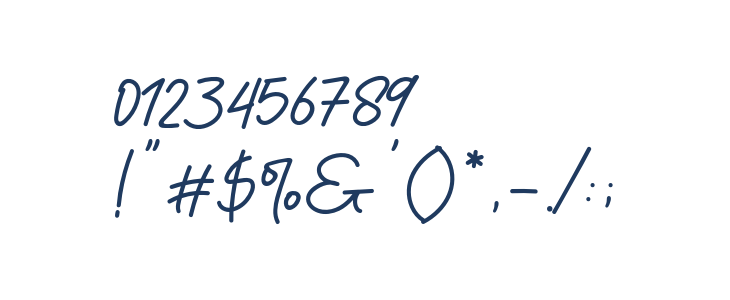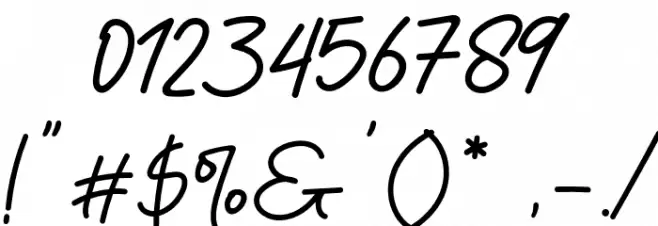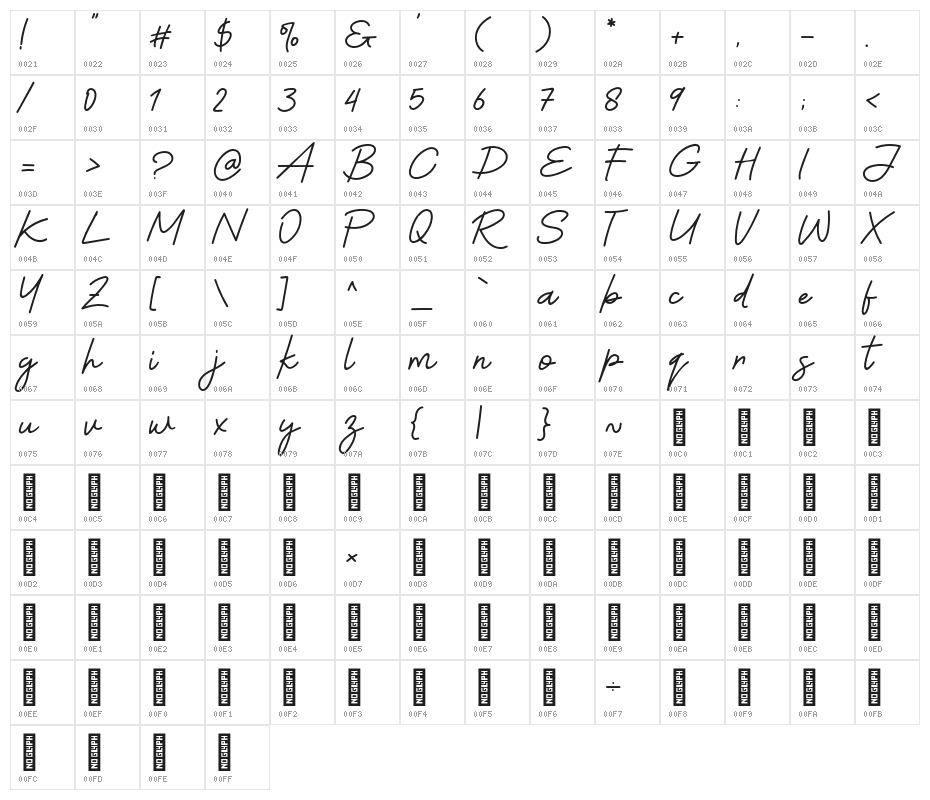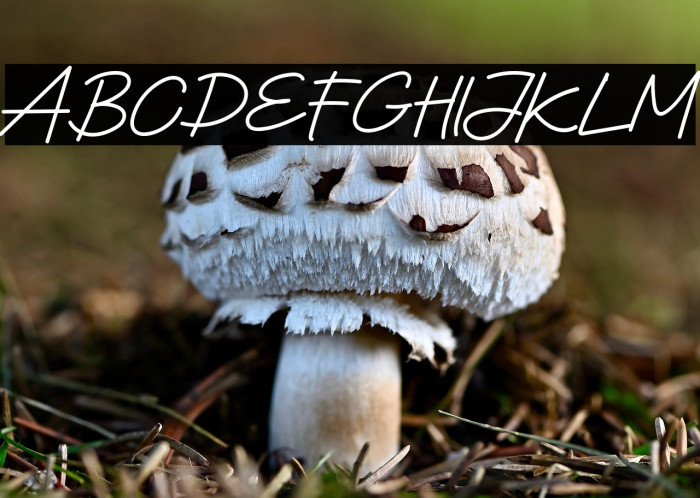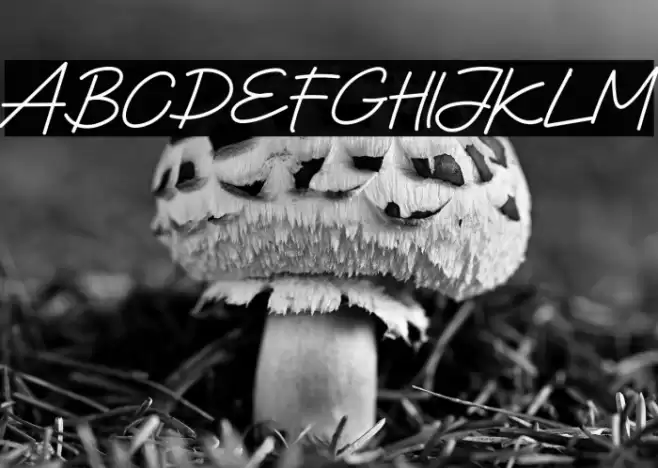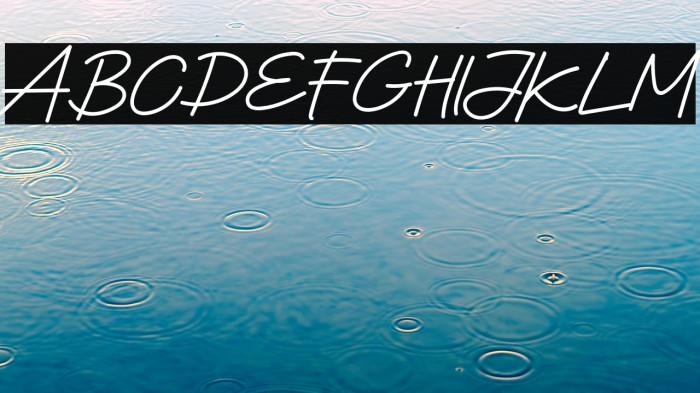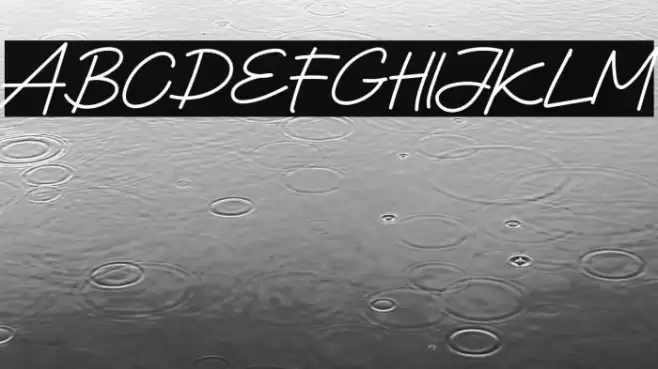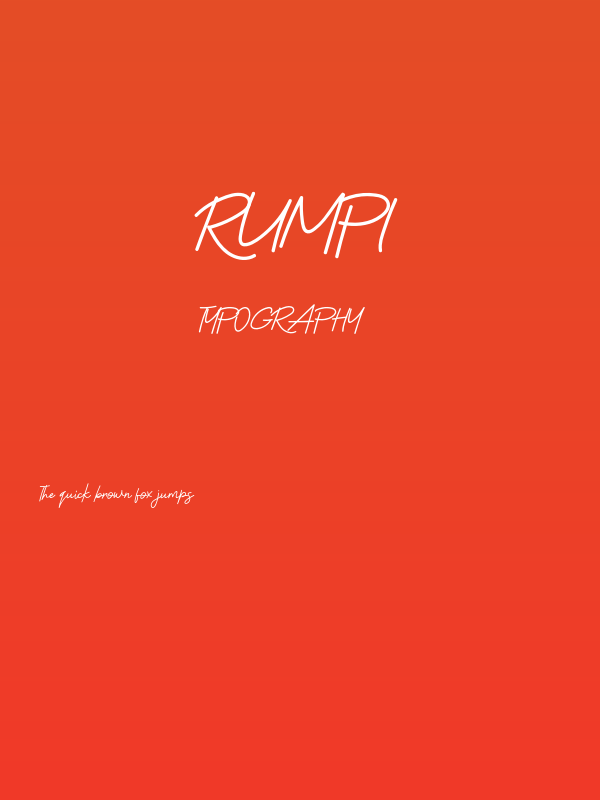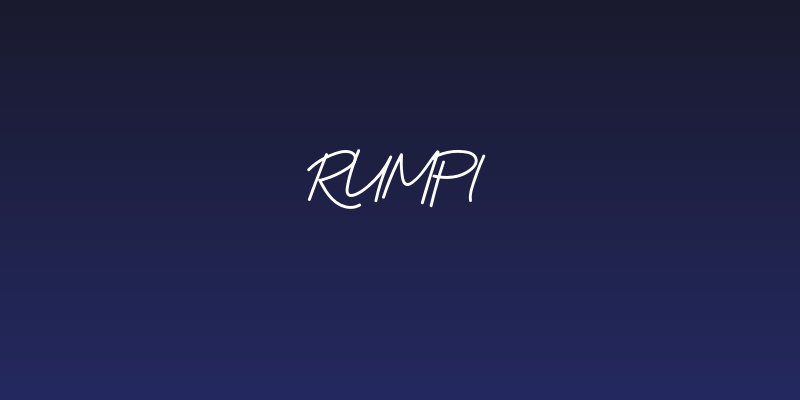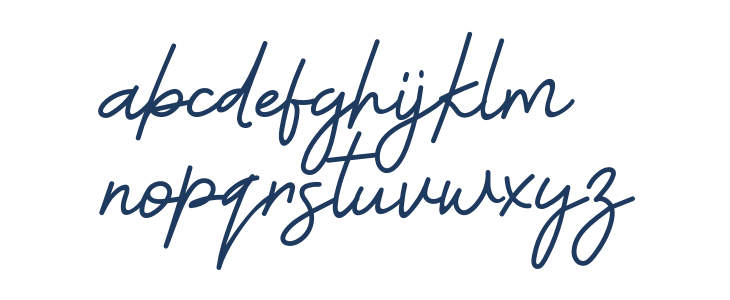
Rumpi Font
Rumpi Description
This font features a lively and dynamic handwritten style, characterized by fluid and continuous strokes that mimic the natural flow of cursive handwriting. The uppercase letters are elegantly elongated, while the lowercase letters maintain a consistent rhythm, providing a harmonious balance. The numerals are distinct yet blend seamlessly with the overall script style. Special characters are crafted with the same fluidity, ensuring a cohesive look across all glyphs. The font's design exudes a sense of personal touch and creativity, making it ideal for projects that require a humanistic and approachable feel.
| Proposed Projects | Ideal for wedding invitations, greeting cards, personal branding, and creative projects that require a personal and approachable feel. |